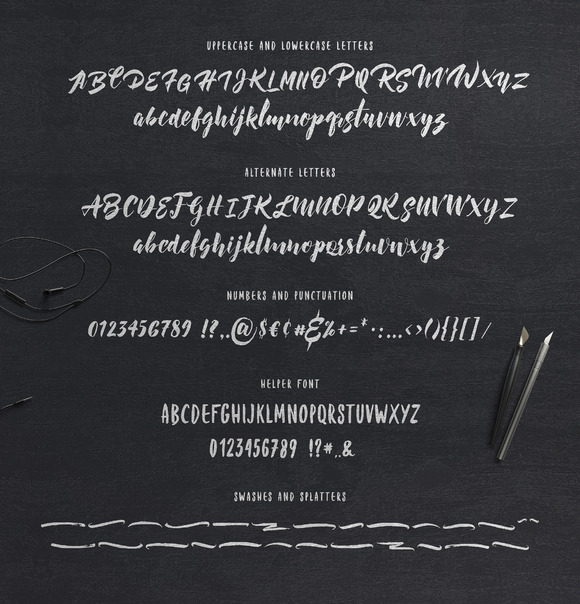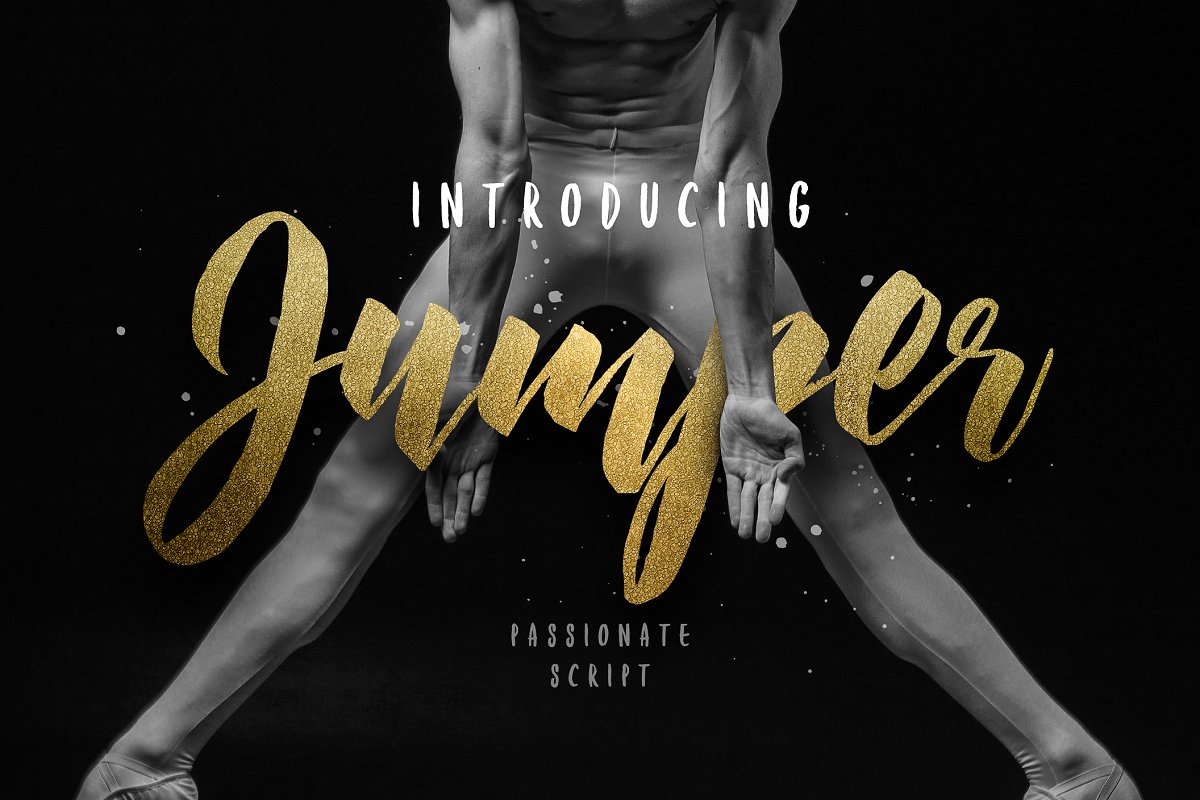
Jumper Script Font
Jumper Script Font notably applied in illustrator and it’s also used on websites. That is similar to the Sophia font it’s also used for its pairing feature. You‚Äôll be stimulated via the manner of the useful resource of masses of those fonts. Keep in mind regardless of the reality that that finding the first-rate font is fine in reality an area to start.
Much like pauls circus font this well-known font ideally suited for photo layout packages starting from the editorial, organization, net, interplay to product layout. Jumper Script Font Free Moreover to the normal styles, the trade variations will turn the font right proper into an excellent partner for modern-day-day-day, technical, and gift-day impressions further to excessive unique, expensive, and timeless. Consists of a whole set of characters that lets you deal with numerous languages in its four versions. Therefore, amastery script may be seen as a proper away companion to the cell telephone font’s family.